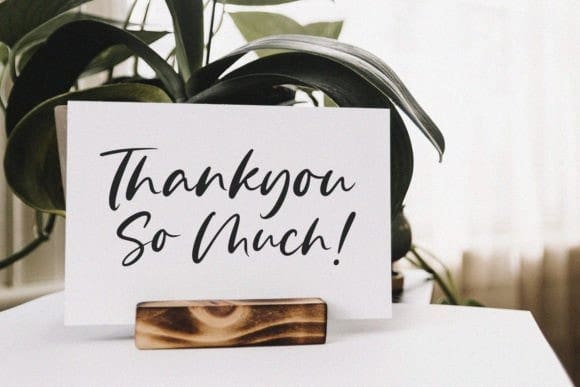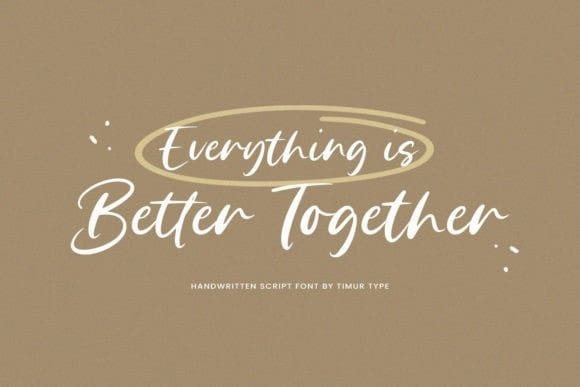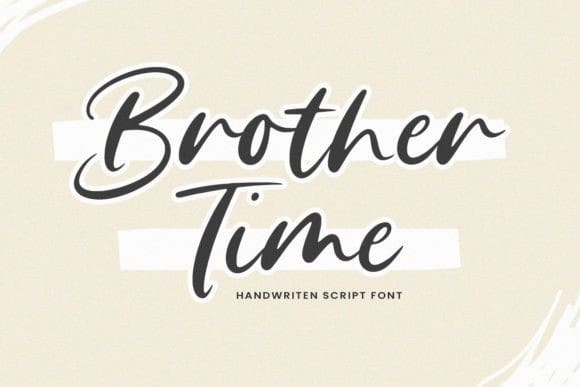
Brother Time Font
Brother Time Font is a flowing handwritten font, described by an elegant touch, perfect for your favorite projects. Fall in love with its incredibly distinct and timeless style and use it to create spectacular designs!